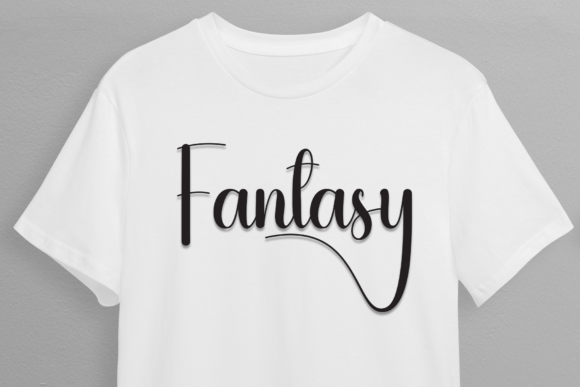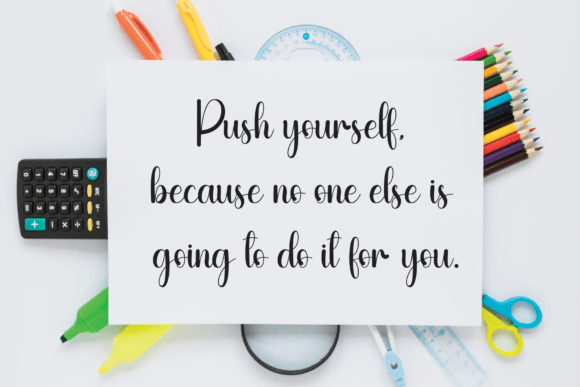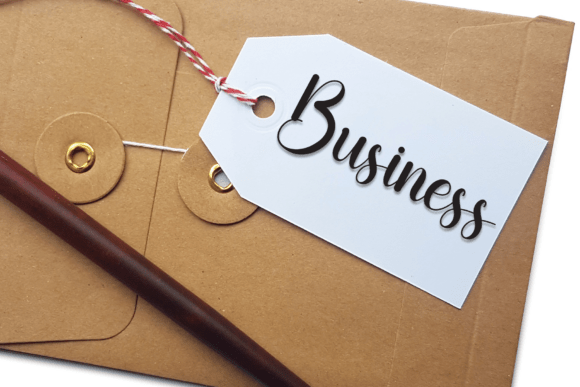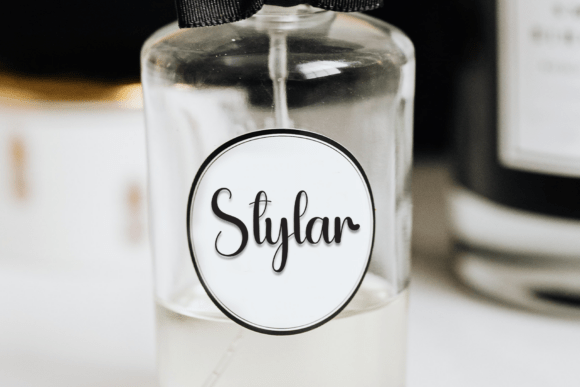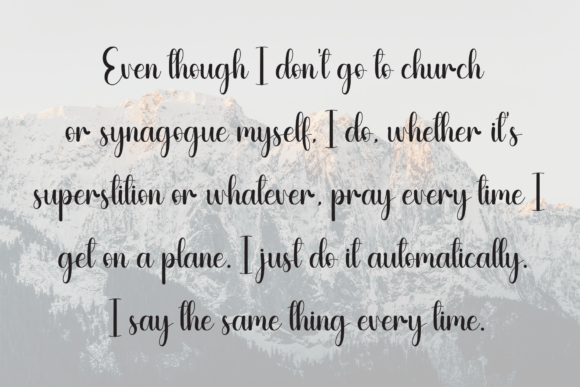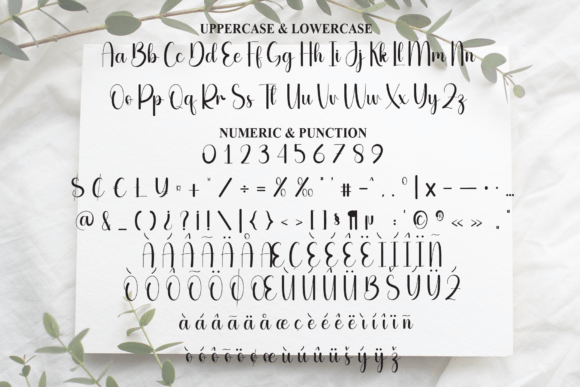
Introducing Greating Font: Elevate Your Designs with Elegance and Charm
Are you looking for a font that can add a touch of sophistication and elegance to your designs? Look no further than Greating Font, a beautiful handwritten script font that is sure to captivate your audience. With its fluid, graceful strokes, Greating Font is perfect for a variety of design projects, from branding and invitations to stationery and more.
The Characteristics of Greating Font
Greating Font is a stylish handwritten script font that boasts smooth curves and a natural flow, creating a timeless and refined look for any design. Its fluid strokes and elegant letterforms make it perfect for designs that require a personal and sophisticated touch. Whether you’re creating a brand identity, designing an invitation, or crafting a piece of stationery, Greating Font is sure to impress.
Perfect for Branding
When it comes to branding, the right font can make all the difference. Greating Font is an excellent choice for brands that want to convey elegance, sophistication, and refinement. Its unique and stylish letterforms will help your brand stand out from the crowd and leave a lasting impression on your customers. Whether you’re creating a logo, business card, or website, Greating Font is sure to elevate your brand to the next level.
Ideal for Invitations and Stationery
Greating Font is also perfect for invitations and stationery, such as wedding invitations, birthday cards, and thank-you notes. Its elegant and refined look makes it ideal for formal events and special occasions. With Greating Font, you can create beautiful and sophisticated designs that will make your invitations and stationery stand out from the rest.
Tips for Using Greating Font
Here are a few tips for using Greating Font in your designs:
- Use Greating Font as a headline font to add a touch of elegance and sophistication to your design.
- Pair Greating Font with a sans-serif font for a modern and stylish contrast.
- Use Greating Font to create a cohesive brand identity across all your marketing materials.
Why Choose Greating Font?
So why choose Greating Font for your design projects? Here are just a few reasons:
- Unique and stylish letterforms that will make your designs stand out.
- Elegant and refined look that’s perfect for formal events and special occasions.
- Fluid and graceful strokes that create a natural and effortless look.
- Perfect for branding, invitations, stationery, and more.
In conclusion, Greating Font is a beautiful and stylish handwritten script font that is perfect for designers and crafters looking to add a touch of elegance and sophistication to their designs. With its fluid, graceful strokes and smooth curves, Greating Font is ideal for branding, invitations, stationery, and more. Whether you’re creating a brand identity, designing an invitation, or crafting a piece of stationery, Greating Font is sure to impress.